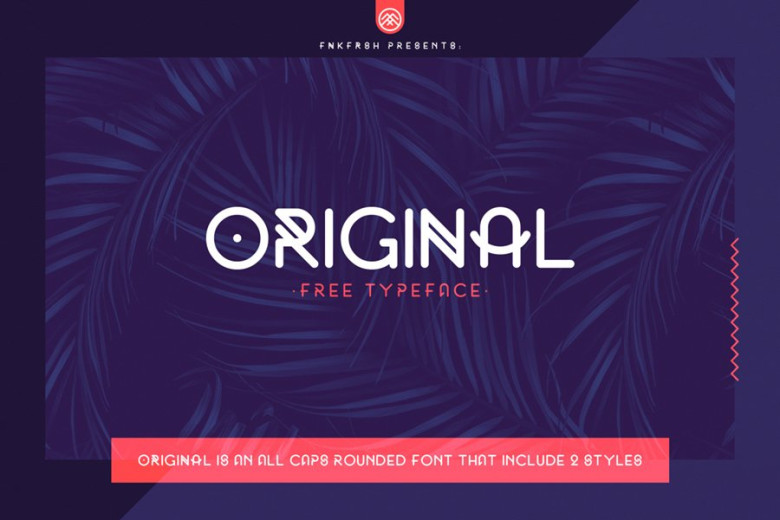
Original Font
Original is a rare high-quality free font. It is unique and unconventional which is make it great for poster and heading uses. This rounded monoline typeface is what you need when it comes to attract viewers attention.